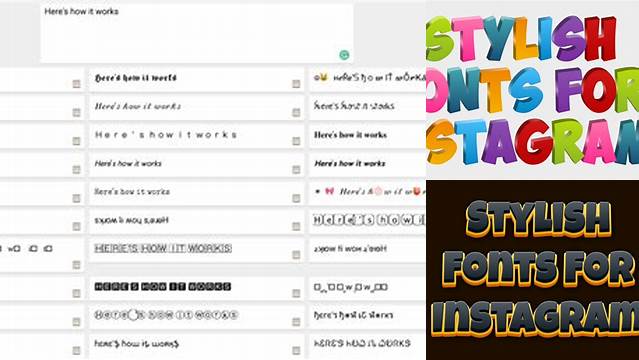
Instafonts.io: Cool Fonts And Stylish Text Guide
Hey guys! Ever wanted to spice up your social media profiles, make your messages pop, or just generally add a little pizzazz to your text? Well, you're in luck! We're diving headfirst into the awesome world of Instafonts.io and its treasure trove of font symbols. This guide is your ultimate resource for everything related to Instafonts, helping you generate stylish fonts, understand how they work, and use them like a pro. Let's get this show on the road!
What are Instafonts.io Font Symbols and Why Should You Care?
Alright, first things first: what exactly are we talking about when we say "Instafonts.io font symbols"? Essentially, Instafonts.io is a super handy online tool that lets you convert your regular text into a bunch of cool, fancy fonts. Think of it as a text transformer, but instead of turning your words into robots, it gives them a serious makeover. The site uses a variety of Unicode symbols to create these unique fonts, which can then be copied and pasted into various platforms like Instagram, Facebook, Twitter, and even your good ol' text messages. And the best part? It's totally free and super easy to use. Instafonts.io font symbols can drastically enhance the visual appeal of your content. They help you to stand out from the crowd. In today's crowded digital landscape, grabbing attention is half the battle. Unique fonts are the key to helping your profile pop off. Whether you're a social media guru, a business owner, or just someone who loves to express themselves creatively, Instafonts.io offers a simple yet powerful way to level up your text game.
Using Instafonts.io font symbols is all about embracing the creative side of the internet. It's about finding new ways to connect with your audience, make your brand memorable, and express your personal style. Why stick with boring, standard fonts when you can inject some personality and flair into your text? The impact of unique fonts goes beyond just aesthetics. They contribute to your brand identity, make your content more engaging, and encourage your audience to take notice. Imagine your Instagram bio or Facebook posts, suddenly transformed with stylish fonts that make your profile more engaging. Your followers will be intrigued and more likely to explore your content further. In this digital world, a little creativity can go a long way. Instafonts.io provides an easy pathway to enhance your digital presence. It's not just about changing the font; it's about changing the way you communicate and the way your audience perceives you. With the right approach, you can turn simple text into a statement.
How to Use Instafonts.io: A Step-by-Step Guide
Okay, let's get down to brass tacks: how do you actually use Instafonts.io? It's seriously a piece of cake, but here's a step-by-step breakdown to ensure you're a font-generating pro in no time:
- Visit Instafonts.io: Head over to the website. You can't miss it – the interface is clean and straightforward.
- Type Your Text: In the input box, type whatever text you want to transform. This could be anything: a witty caption, a bio, a message, or even just a single word.
- Browse the Font Styles: As you type, Instafonts.io will automatically generate a bunch of different font styles based on your input. Scroll through the various options until you find one (or several) that you like. There's a huge variety, from elegant cursive fonts to bold, blocky ones and everything in between.
- Copy the Font: Once you've found your favorite font, click the "Copy" button next to it. This copies the styled text to your clipboard, ready for pasting.
- Paste Where You Want: Now, go to the platform where you want to use your fancy font (Instagram, Facebook, Twitter, etc.) and paste the text. You can paste it into your bio, your posts, comments, or even direct messages. And there you have it – your text is now styled!
That's it, folks! It's as simple as typing, selecting, and pasting. Now, a few things to keep in mind:
- Compatibility: While Instafonts.io works great on most platforms, the way the fonts display can sometimes vary. Always double-check how the font looks after you paste it to make sure it renders correctly. Some platforms may have limitations on the types of Unicode characters they support.
- Character Limits: Be aware of character limits on platforms like Instagram or Twitter. Your stylish font might take up more characters than a standard font.
- Experiment: Don't be afraid to play around with different fonts and see what works best for your style and your audience. Some fonts are better suited for headlines, while others are perfect for short captions or bios.
Tips and Tricks for Maximizing Your Instafonts.io Experience
Alright, you know the basics. Now, let's take your Instafonts.io game to the next level with some pro tips and tricks:
- Use Font Combinations: Experiment with combining different fonts to create even more unique and eye-catching text. Try pairing a bold font with a more delicate one or use different fonts for different parts of your text.
- Consider Your Audience: Think about who you're trying to reach. Some fonts are more suitable for certain audiences than others. A playful font might be great for a younger audience, while a more professional font might be better for business content.
- Use Fonts Strategically: Don't overdo it! While it's fun to use stylish fonts, using too many different fonts or using them in every single post can be overwhelming. Use fonts sparingly to highlight key phrases, headlines, or important information.
- Check Font Availability: Although Instafonts.io works across many platforms, there can be display issues. Before you commit to a font, double-check how it looks in the final destination, especially if using it for a logo or a critical piece of branding.
- Keep it Readable: While the goal is to make your text stand out, ensure that the chosen fonts are still legible. Some decorative fonts can be difficult to read, so balance style with readability.
Conclusion: Unleash Your Creativity with Instafonts.io
So, there you have it! You're now equipped with the knowledge to use Instafonts.io font symbols like a pro. Remember, the key is to experiment, have fun, and let your creativity run wild. Instafonts.io is a fantastic tool for anyone looking to add a little flair to their digital content. Whether you want to spice up your social media, create eye-catching graphics, or simply express yourself in a unique way, Instafonts.io has something to offer. Go out there, explore different fonts, and make your text shine! Happy fonting, and may your words always look their best!